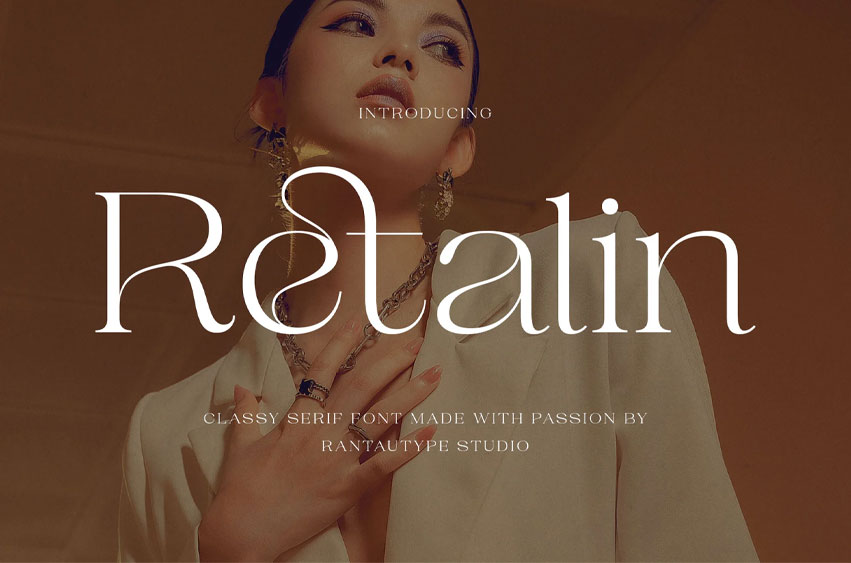
Retalin Font
Retalin Font is an elegant serif font that reflects sophistication in every curve is a timeless choice for refined branding and editorial design. Its gracefully tapered serifs and delicate strokes embody classic beauty, while balanced proportions evoke harmony and poise. Each letterform flows with intentional precision, capturing the essence of luxury and tradition.
Retalin is a perfect choice for any creative endeavor, chic lifestyle design such as logotype, advertisements, watermark on photography, stationery, branding project, display and magazine, invitation, corporate brand, product design, label, business project, and many other projects with a modern touch.